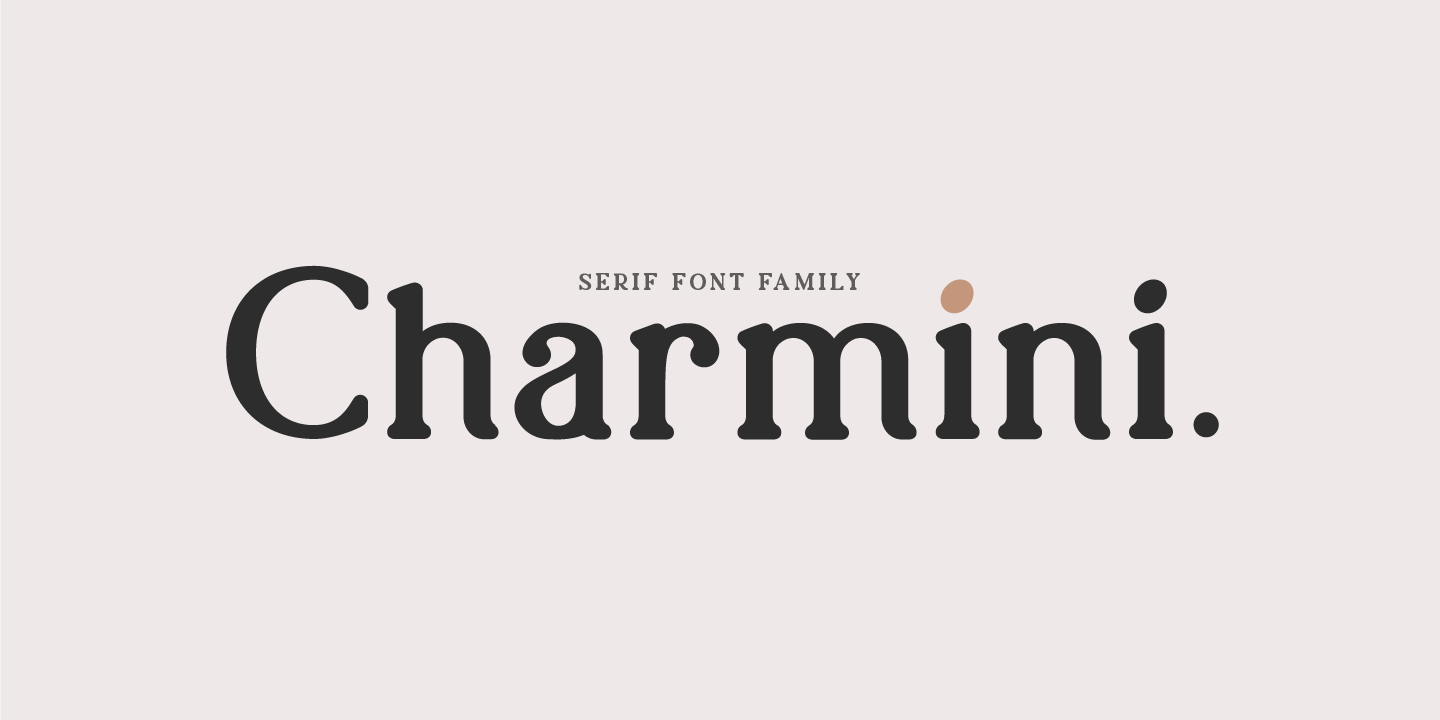
Charmini Font is perfect for charming boutique shop branding, delightful children's book illustrations, whimsical greeting card collections, adorable baby product packaging, playful toy store signage, sweet bakery cafe marketing, enchanting nursery decor designs, cute pet grooming salon logos, lovely craft workshop promotions, and charming family photography studios. Its delightful charming character makes it ideal for projects requiring sweet appeal and adorable personality authenticity.
What makes Charmini Font exciting is its delightful embodiment of sweet charm and playful elegance with adorable letterforms and whimsical characteristics that capture the essence of innocent joy and charming sophistication excellence. The font features gentle curves, playful character details, and charming stroke patterns that create authentic delightful atmosphere and sweet appeal. Its adorable personality brings warmth and happiness to contemporary designs while maintaining the readability essential for family communications and charming presentations. The carefully crafted sweet elements ensure visual charm while preserving the distinctive character that embodies the essence of innocent delight and charming excellence.
Charmini Font comes in multiple charming variations including Light, Regular, Medium, Bold, and Sweet styles. Each family member maintains the distinctive adorable character while offering comprehensive flexibility for charming typography and delightful brand system development. The complete font family includes alternate characters, cute symbols, and playful decorative elements that provide extensive tools for creating immersive charming design experiences and authentic sweet brand storytelling.
Whether you're developing charming brands, family-oriented services, or delightful creative projects, Charmini Font Free Download provides the sweet appeal needed to communicate with families and charm-seeking audiences who appreciate innocent beauty and adorable presentation. The font's charming appeal resonates with parents, children's product designers, and family service providers seeking authentic sweet credibility and charming sophistication. Its comprehensive character set includes cute symbols and charming marks, making it perfect for creating complete delightful brand systems and memorable sweet storytelling across diverse family applications and charm-focused design projects that celebrate innocent joy and charming excellence.